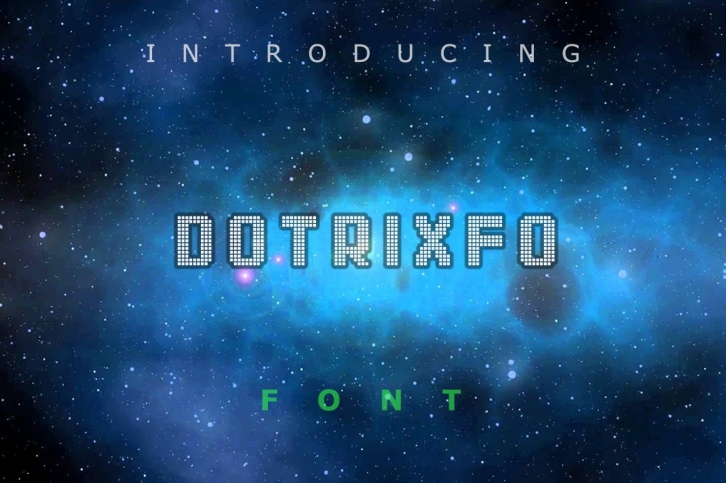
Dotrixfo is a beautiful font that was designed by Leamsign. It's a great choice for designers and creatives who need such a font. It was released on November 13, 2018 and the file size is 4.58 MB. Dotrixfo may give a more youthful, expressive and casual look to your project. It is a very beautiful, refined, elegant, and high-quality font.